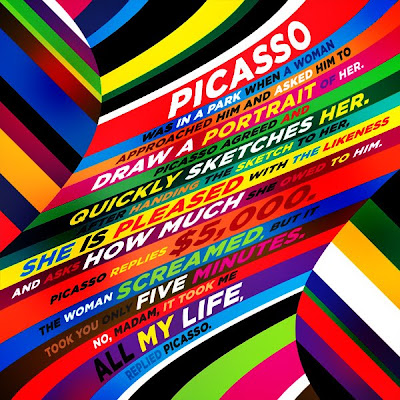
Okay, so I'll start things off with a bang...
Both typographically stimulating and almost an overabundance of color. But the creator chose the color of text and background to make sure important words stood out and not-so-important words fall to the background.
I like the quote too... :)